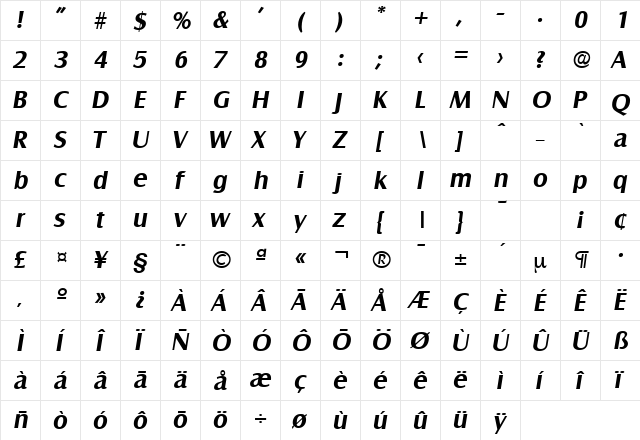
Salzburg-Serial BoldItalic Font Preview
Design Context for Salzburg-Serial Typeface
Salzburg-Serial takes a measured approach to typography — its balanced proportions and neutral character make it a reliable workhorse for both digital and print work. The slanted form adds forward momentum and visual energy. Its bold stroke weight gives it real presence on the page.
Pro Tip: Try Salzburg-Serial for annotation and caption copy alongside an upright companion — the contrast in angle creates a dynamic but ordered typographic system.